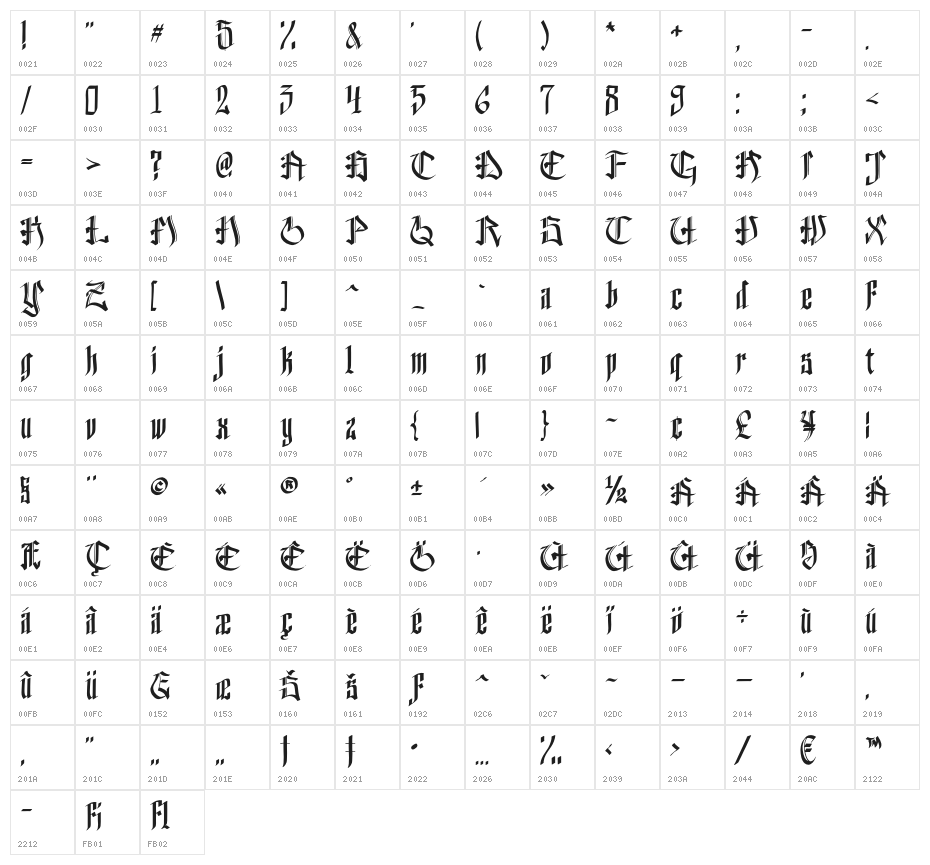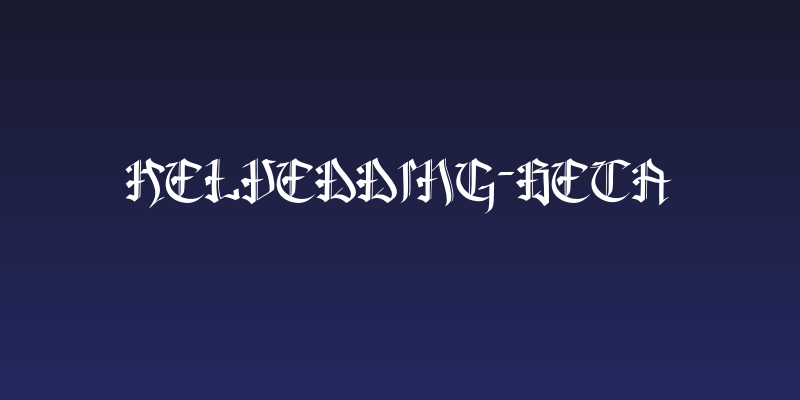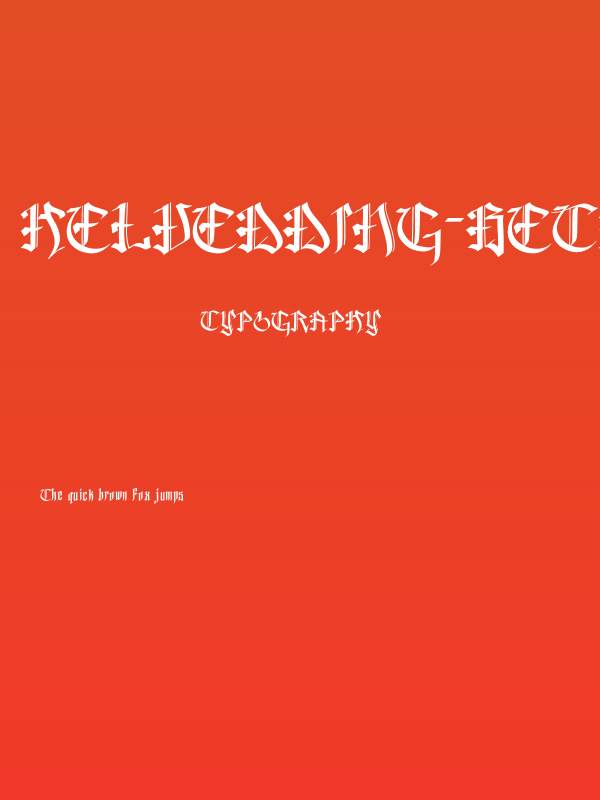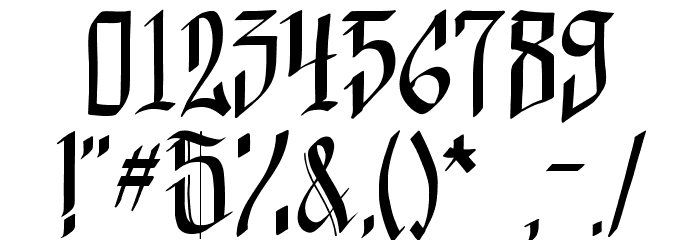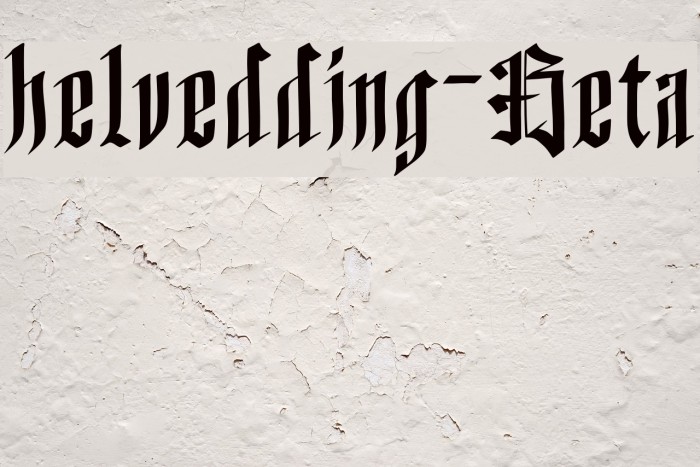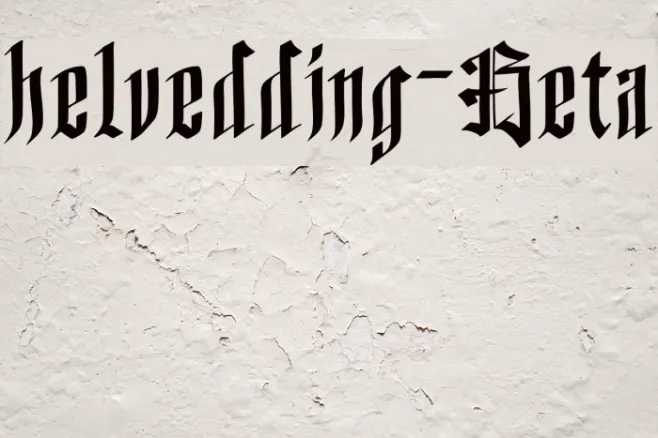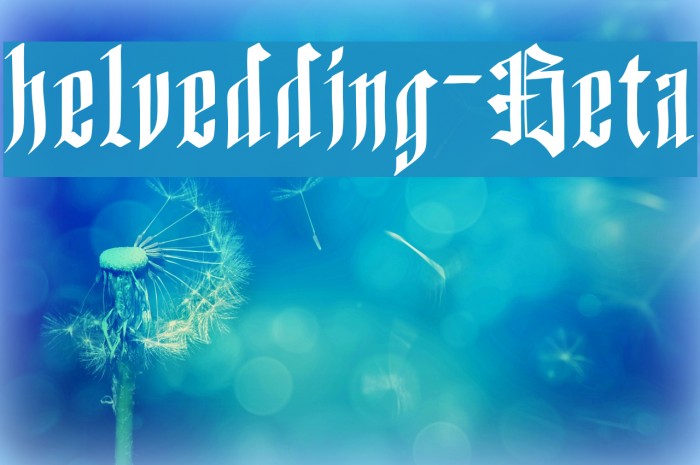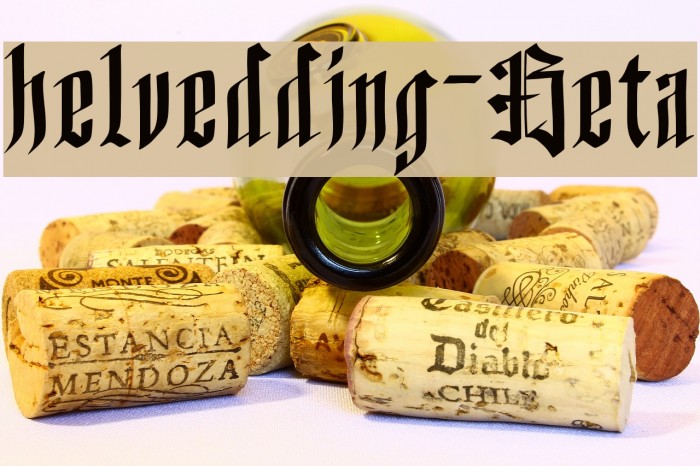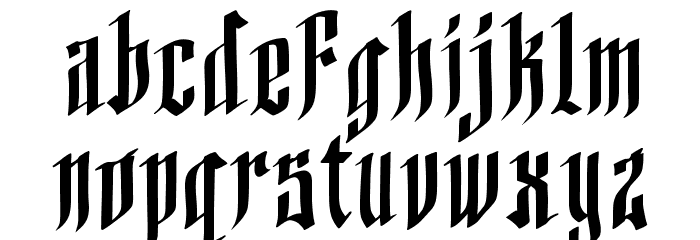
helvedding-Beta Font
helvedding-Beta Description
This font exhibits a strong, traditional Blackletter style, characterized by its sharp, angular lines and intricate detailing. The uppercase letters are bold and commanding, with a distinct medieval flair that is both decorative and authoritative. The lowercase letters maintain the same stylistic elements, offering a cohesive look throughout the typeface. The numerals are equally stylized, ensuring consistency in design. Special characters are crafted with the same attention to detail, making them suitable for ornamental purposes. This font is ideal for projects that require a historical or gothic aesthetic, such as themed events, branding for vintage products, or artistic works that aim to evoke a sense of antiquity.